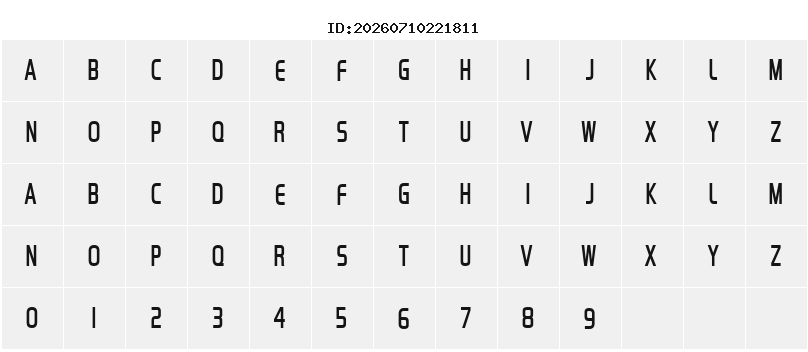
• Font Name: HandelGotComDLig
HandelGotComDLig.ttf is a modern, elegant sans-serif font designed for ultimate readability and visual harmony. Perfect for branding, headlines, web design, and print materials.